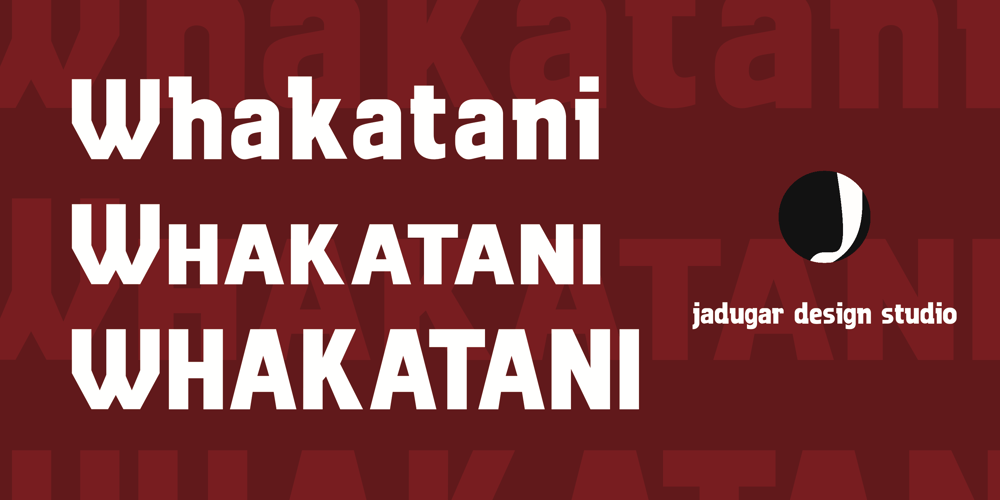
Whakatani
Whakatani font
Whakatani Font Family was designed by mobaric minhas and published by Jadugar Design Studio. Whakatani contains 1 styles and family package options. Whakatani is a new font with only have Bold option at the moment, beautifully kerned letters and multi language supporting. About Whakatani—- Whakatane invites you to throw away your watch, relax in the sunshine, experience the special lure of the ocean and marvel at the relaxed friendliness of the people – as you discover all the little things that make Whakatane so exceptional. Renowned for great weather, beautiful beaches, culture and a relaxed lifestyle, the Whakatane region is one of New Zealands most attractive locations for visitors and relocators.